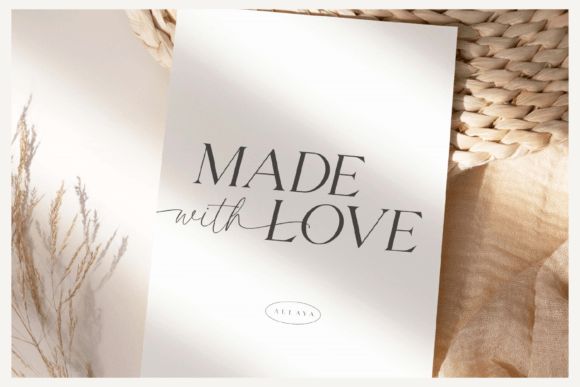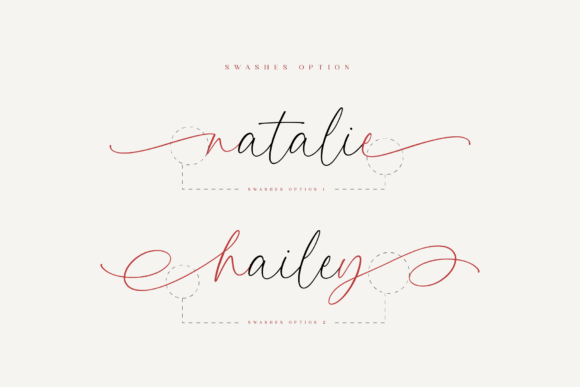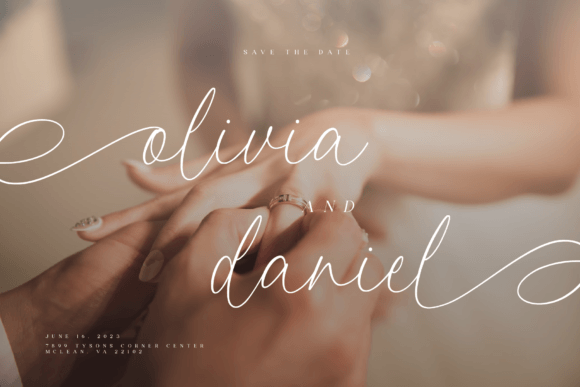
Allaya Font: Elegant Calligraphy Font for Wedding Invitations & Logo Design
About the Allaya Font
Elevate your designs with Allaya Font, a font that combines sophistication with readability. Allaya is a gorgeous handwritten font that exudes elegance, style, and a hint of modernity.  Allaya is perfect for a wide range of design projects, including wedding invitations, logos, branding, packaging, social media graphics, and more. Its versatility makes it suitable for both feminine and masculine designs, and its elegant and timeless style will elevate any project.
Allaya Font Usage Examples
Allaya Font Example